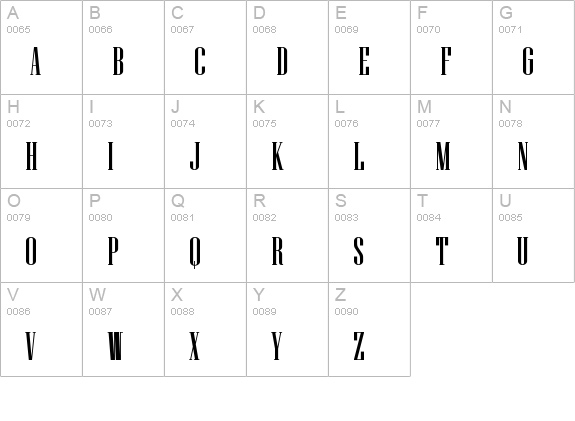
Niagara Solid Font Details
Niagara Solid is a modern and versatile font that exudes a sense of strength and stability. Its clean lines and bold shapes make it perfect for a wide range of design projects, from branding to packaging to headlines. The solid weight of the characters gives a sense of permanence and reliability, making Niagara Solid a great choice for conveying a sense of trustworthiness and professionalism. The best part about Niagara Solid is that it is completely free to download at FontsMarket.com. This means that you can start using this powerful font in your projects right away, without having to worry about any additional costs. Whether you're a seasoned designer looking to add a fresh new font to your collection or a newcomer in need of a reliable option, Niagara Solid is sure to meet your needs. Download it today and see the impact it can make on your designs!